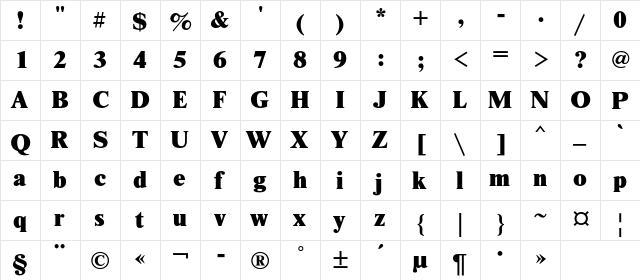
NewtonXC Regular
Design Context for NewtonXC Typeface
NewtonXC offers clean, dependable letterforms without strong stylistic allegiance, making it a practical choice for designers who need flexibility.